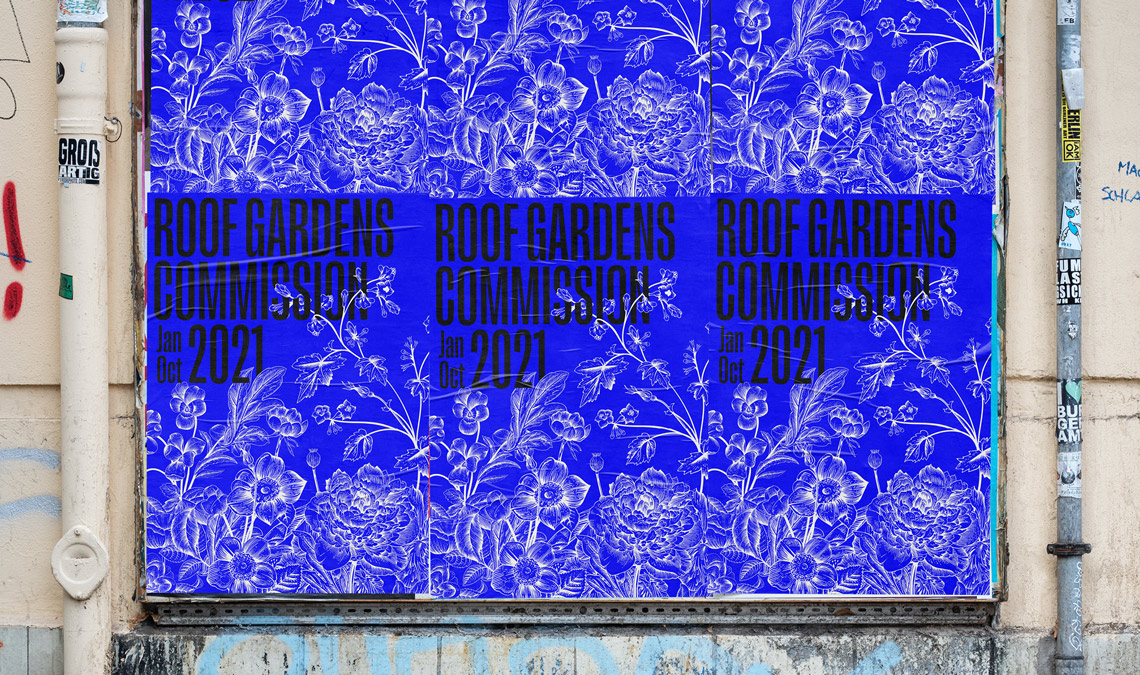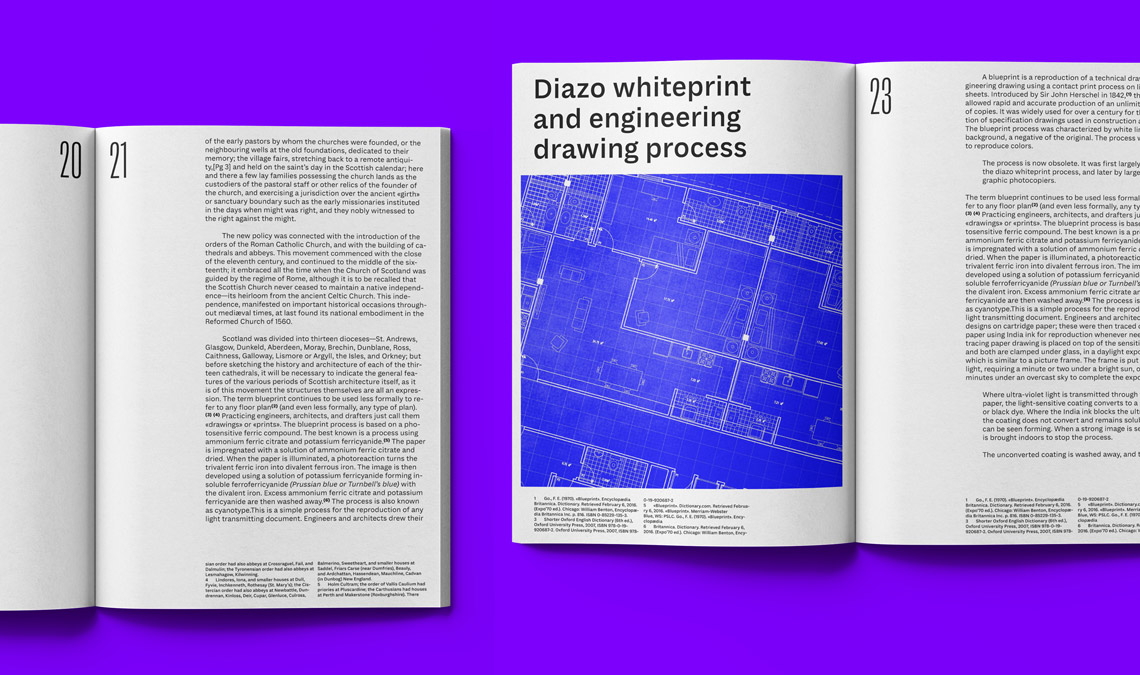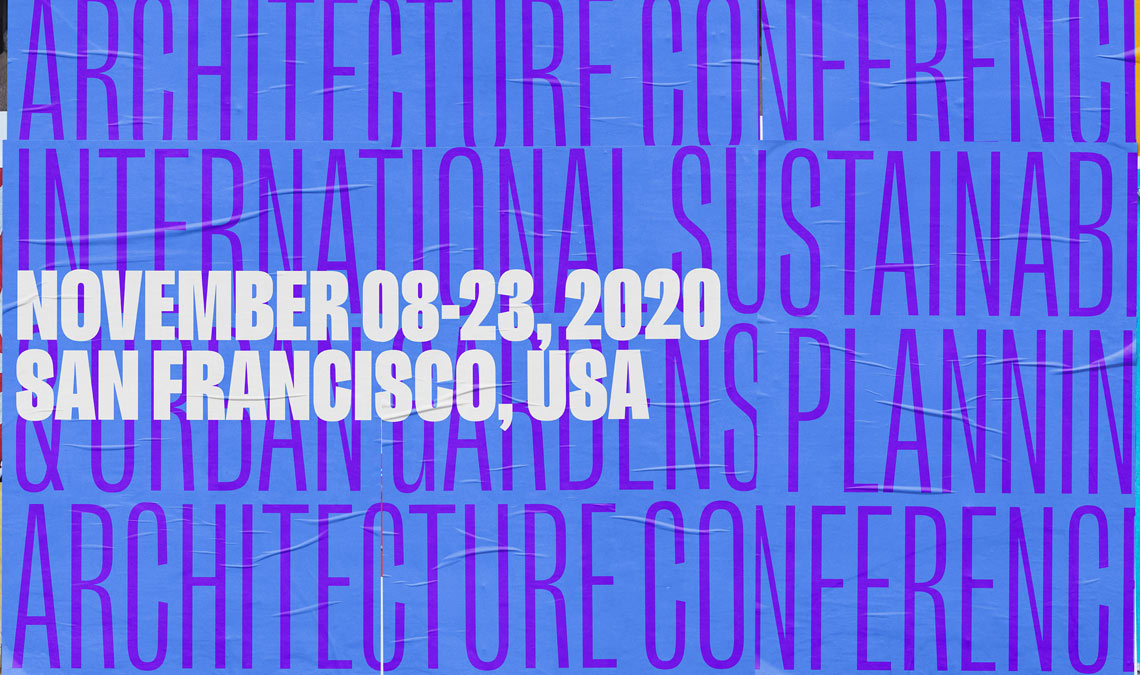
New release: Lektorat
We are excited to announce the first release by 2019 Gerard Unger Scholarship winner Florian Fecher: Lektorat!
Lektorat's three variable fonts or 27 total flavors of a grotesque-style sans are now ready to set every kind of editorial you can imagine. Methodical in rationale and irrepressible in function, they are the embodiment of editorial expression. Powerful headlines and subdued text to inform, persuade, and entertain. Read about its creation and try it on our type tester now!